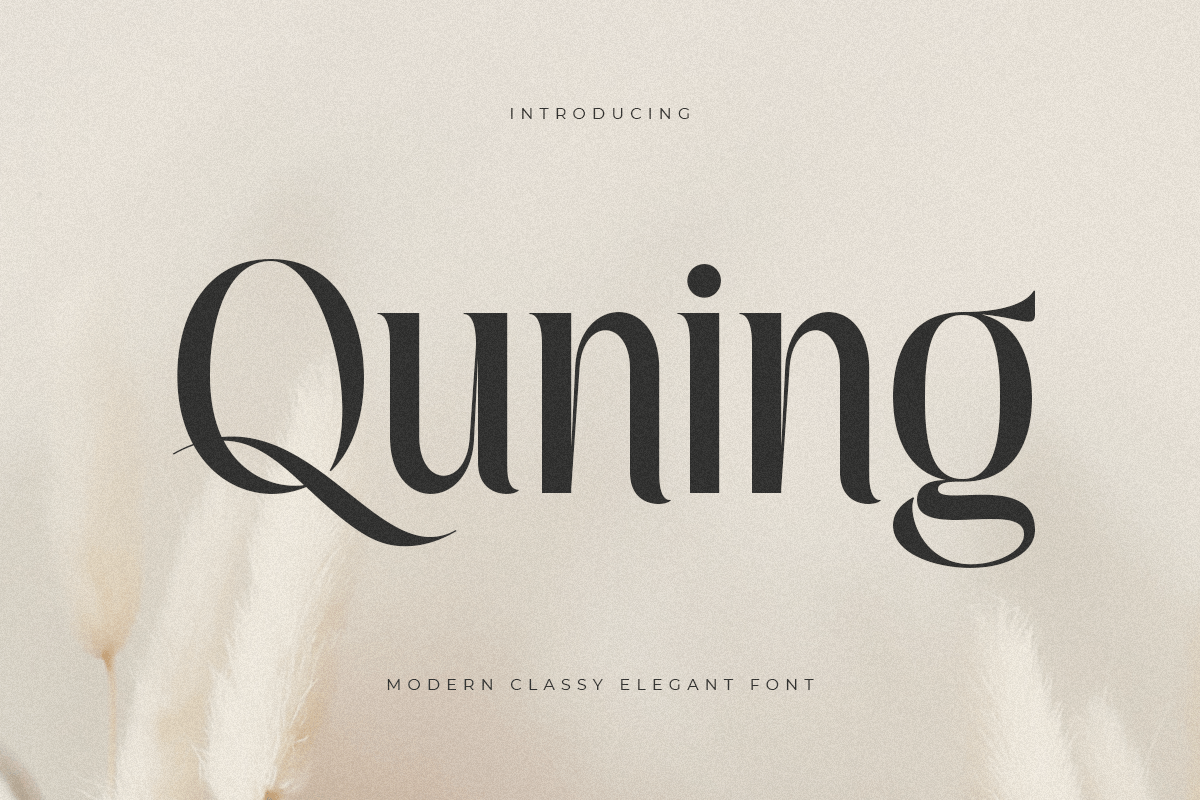
Quning
-Modern Classy Elegant Font
An Elegant serif font that we created special for elegant branding needs, with extra alternates in unique shape will be ready to add value of your brand. It so nice to leverage designer or product owner that need solutions to make their design look more classy and modern. And specially for Quning font, We prepared any alternate characters to help you create unlimited variations for your creative needs.